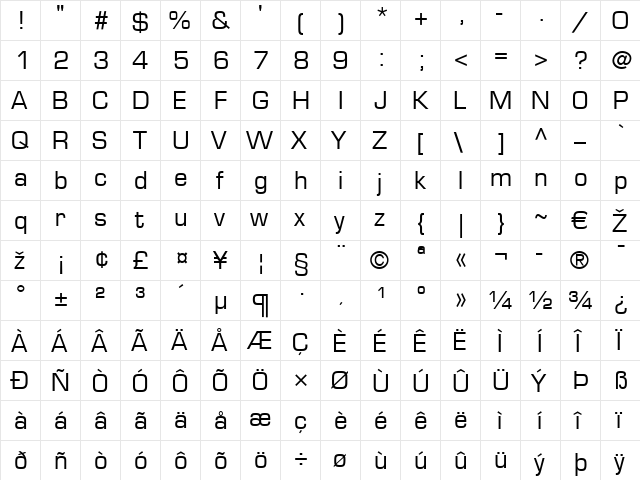
Eurostile LT Regular
Design Context for Eurostile LT Typeface
Eurostile LT is a composed and adaptable typeface that performs quietly and consistently across a wide range of design contexts. The delicate stroke weight brings airiness and refinement to layouts.